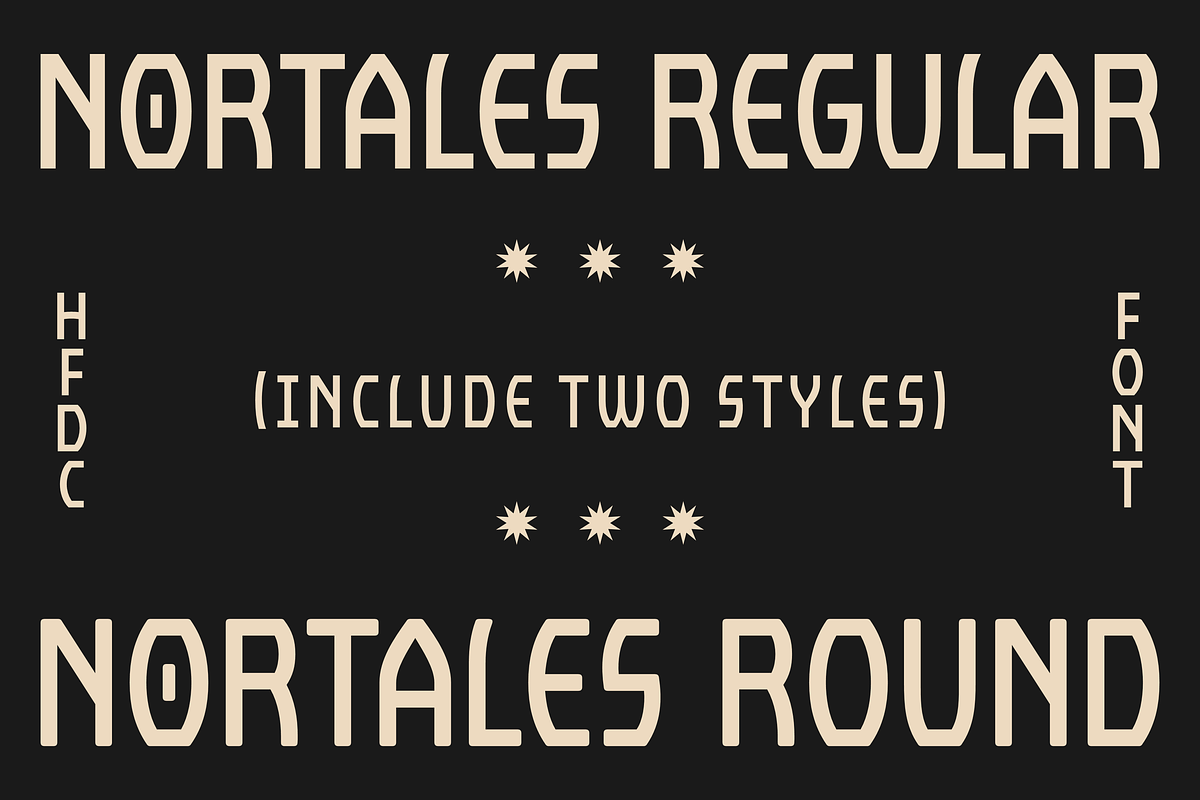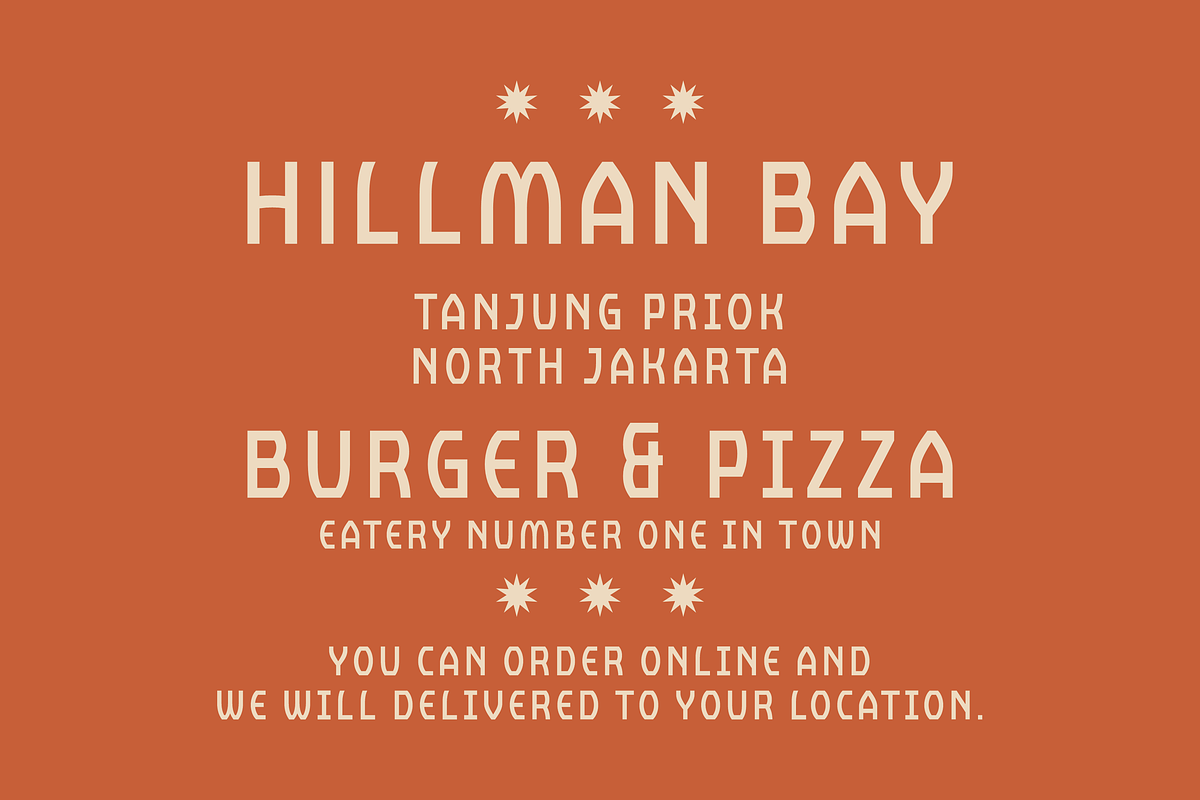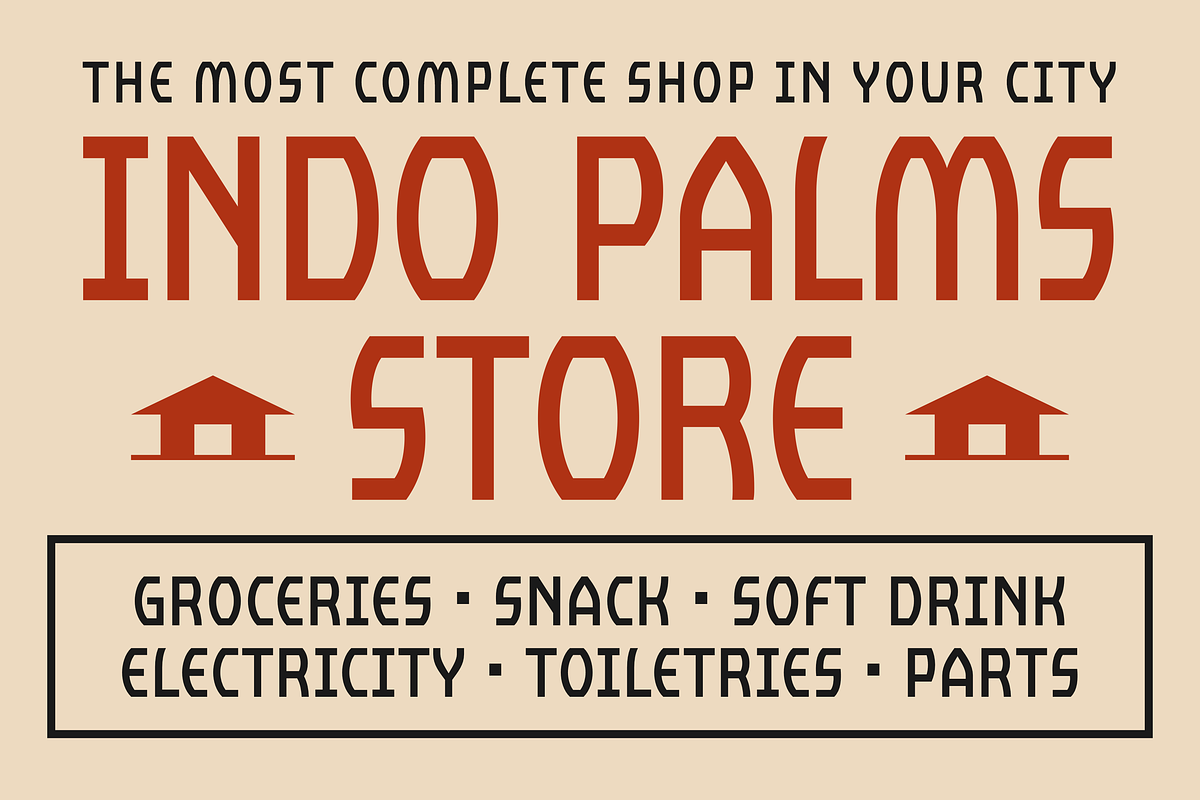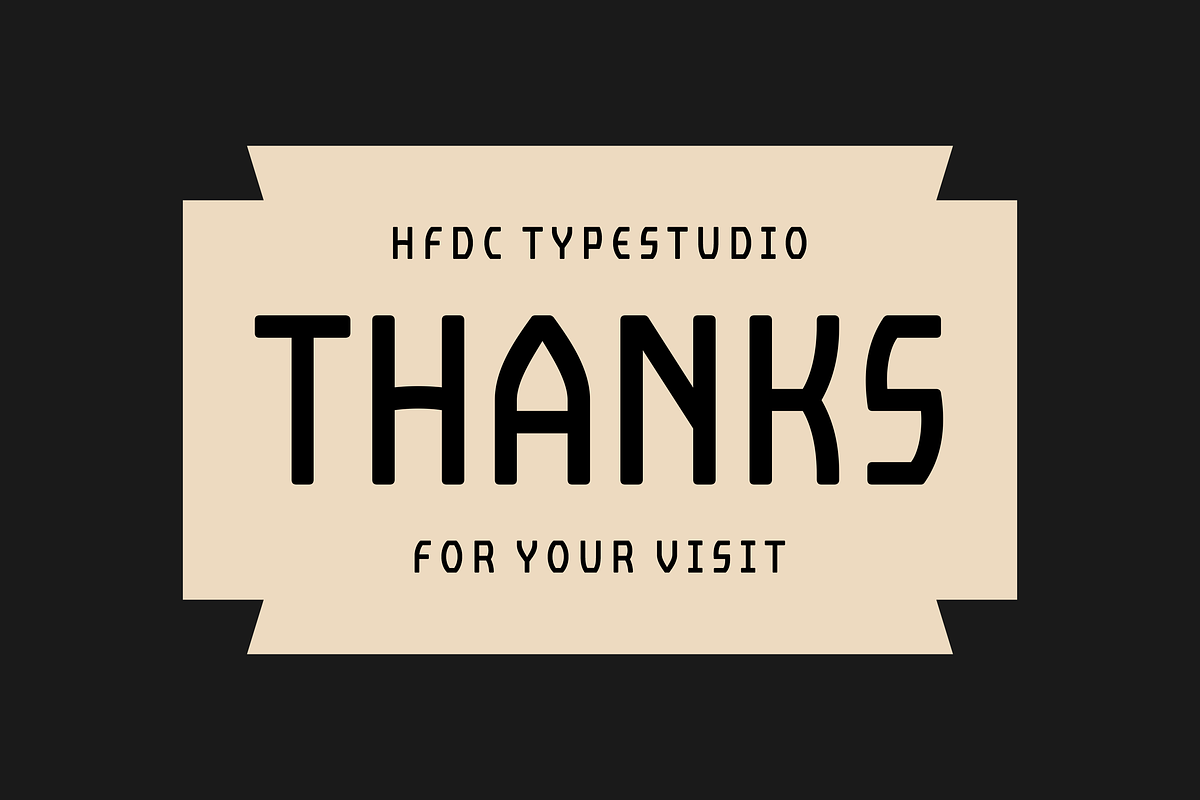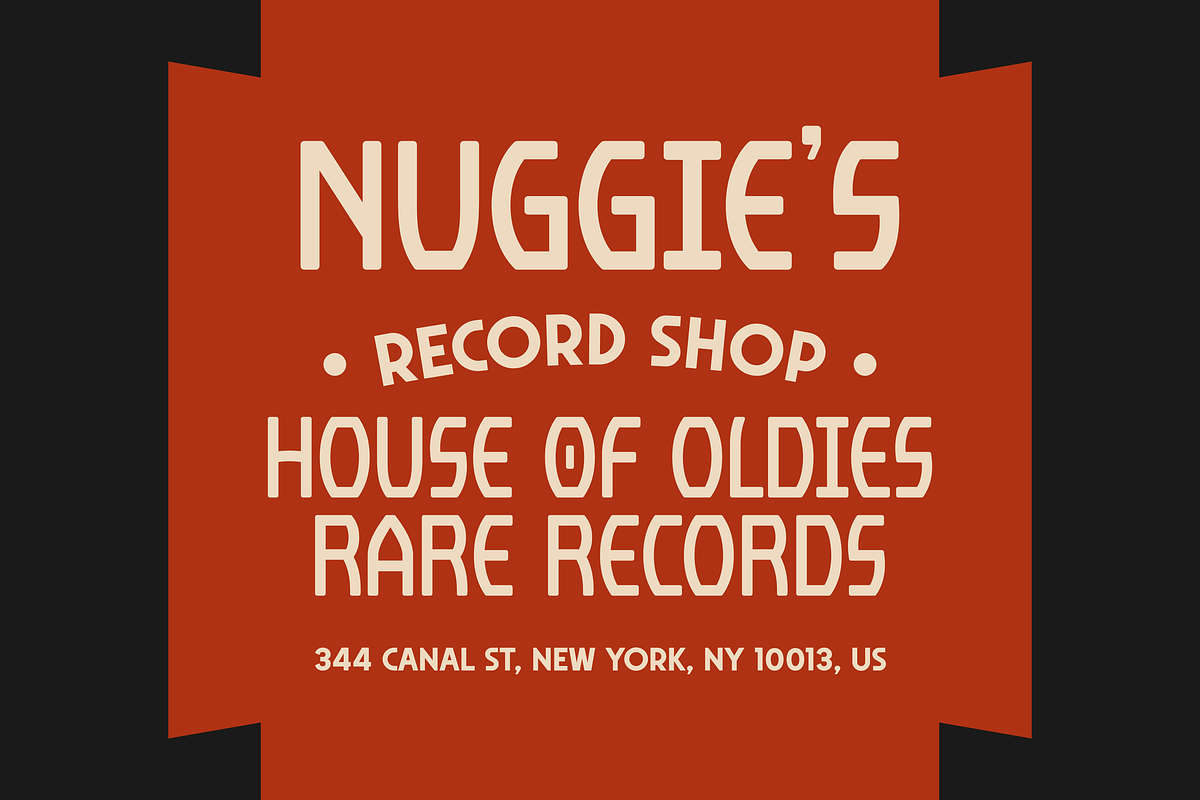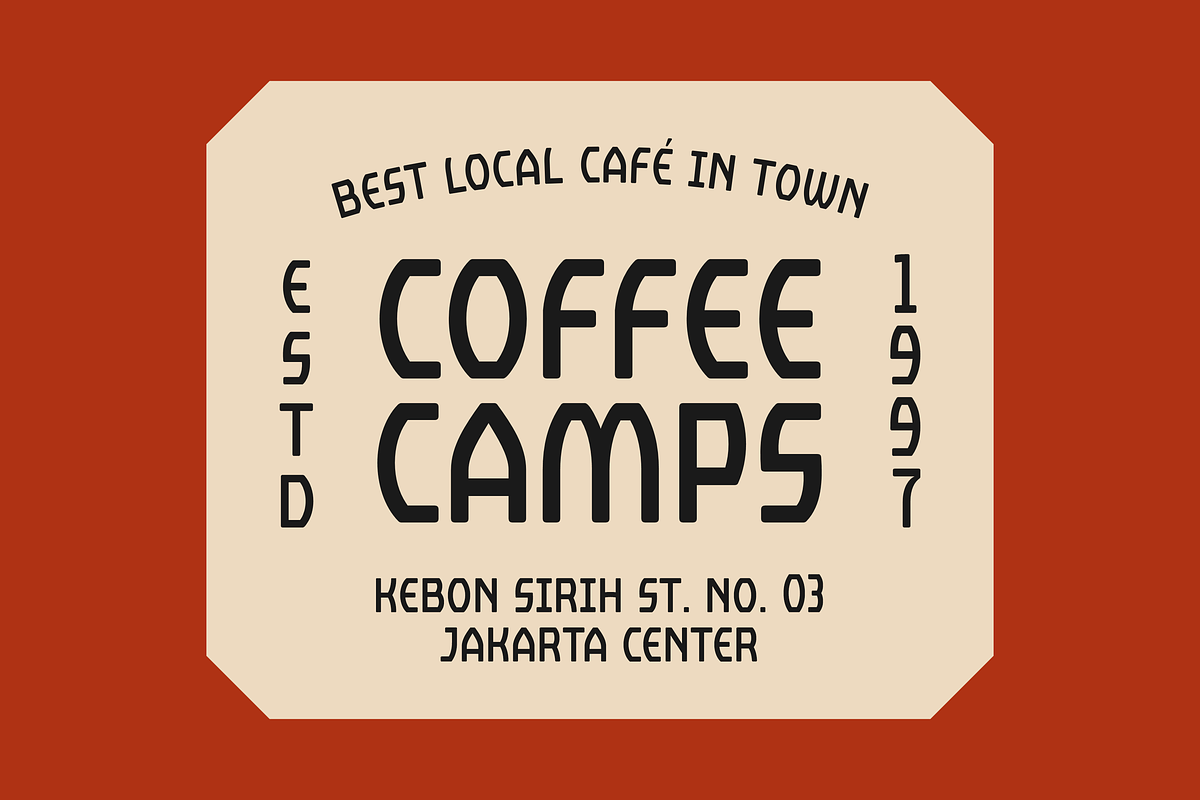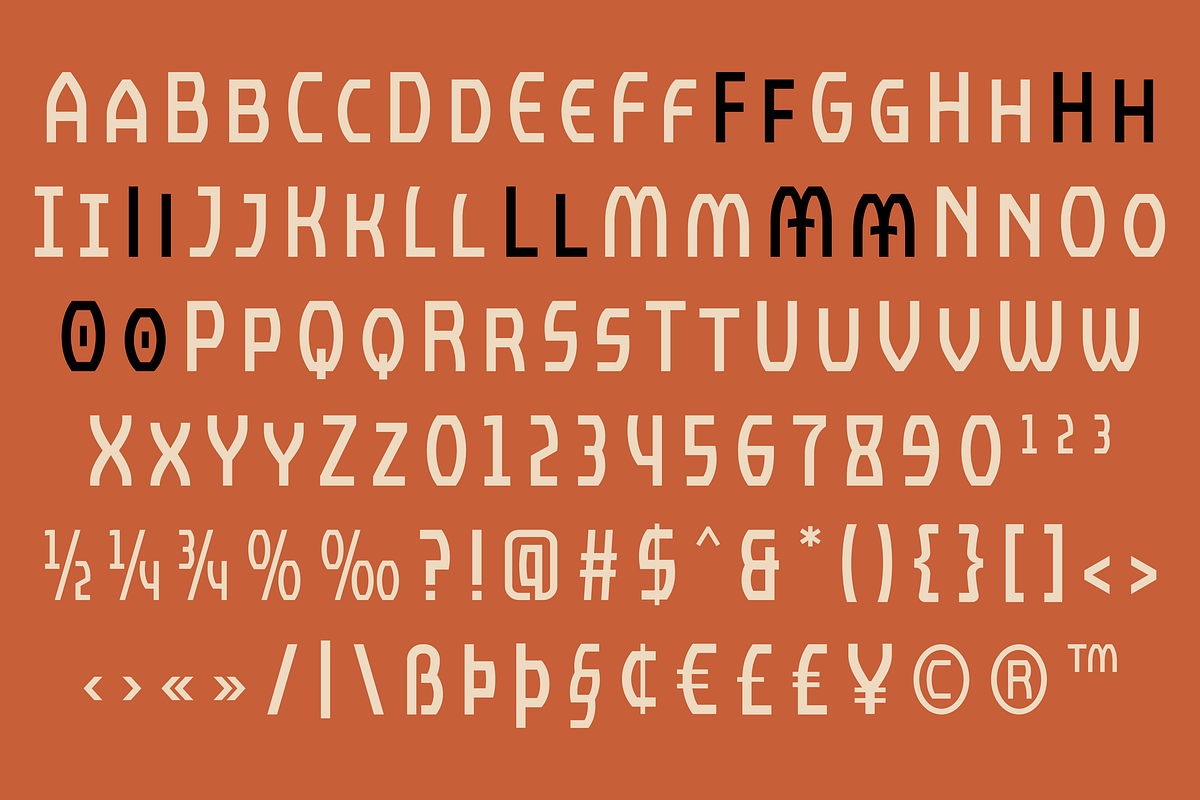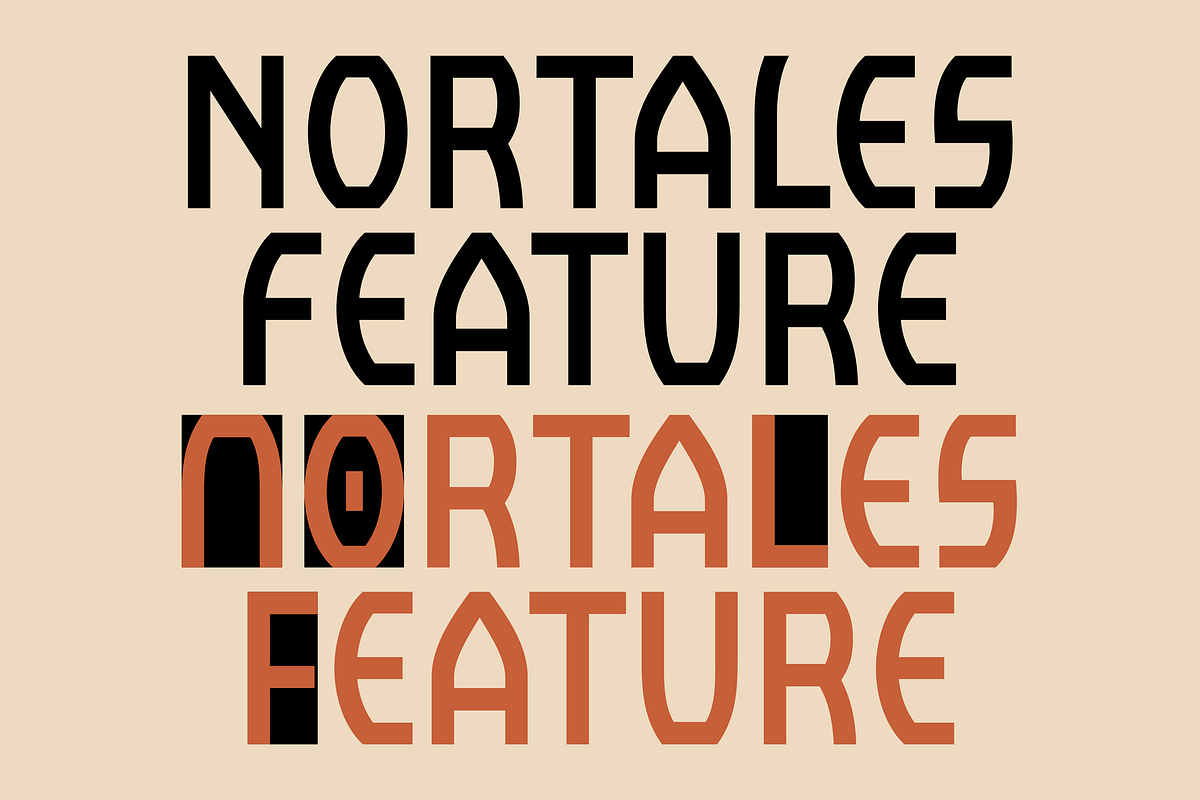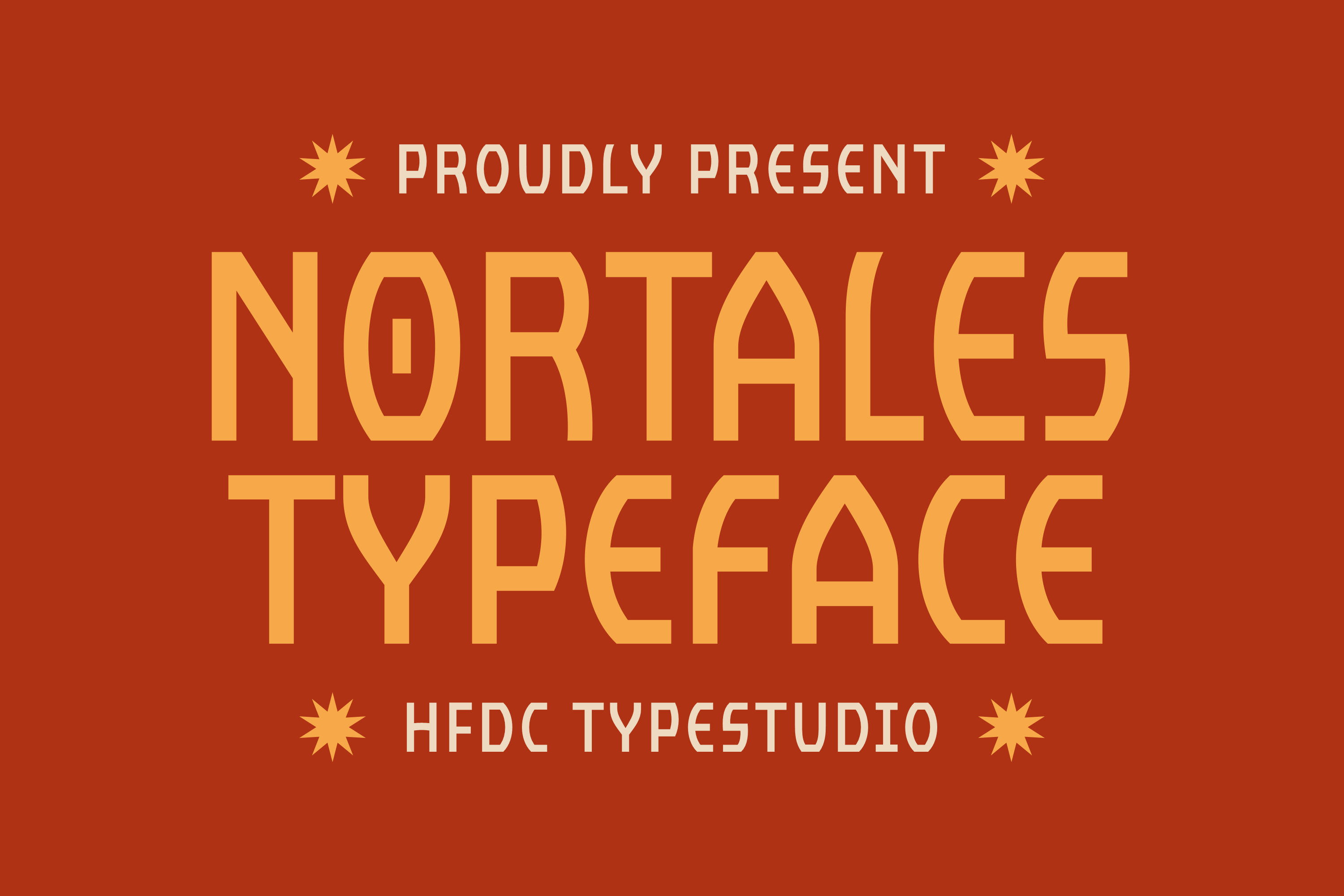
Nortales Vintage Font
The font “Nortales” draws its inspiration from classic store signboards, capturing the essence of vintage aesthetics with a modern twist. It features bold, uppercase characters that convey a strong, timeless presence. In addition to the uppercase letters, “Nortales” includes a complete set of numerals, punctuation marks, and other symbols, making it versatile for various design applications. This font is ideal for projects that seek to evoke a nostalgic yet contemporary feel, whether for branding, signage, or digital content. Available with 2 styles regular and rounded Nortales.
- All caps font
- Currency symbol